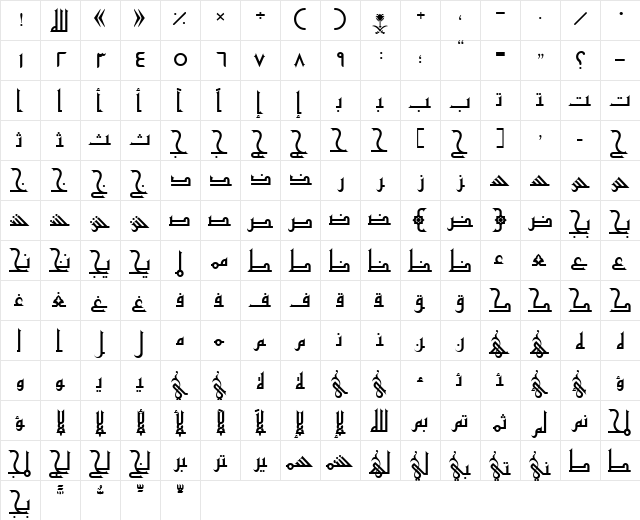
AYM Shurooq 20 Normal
Design Context for AYM Shurooq 20 Typeface
AYM Shurooq 20 takes a measured approach to typography — its balanced proportions and neutral character make it a reliable workhorse for both digital and print work.